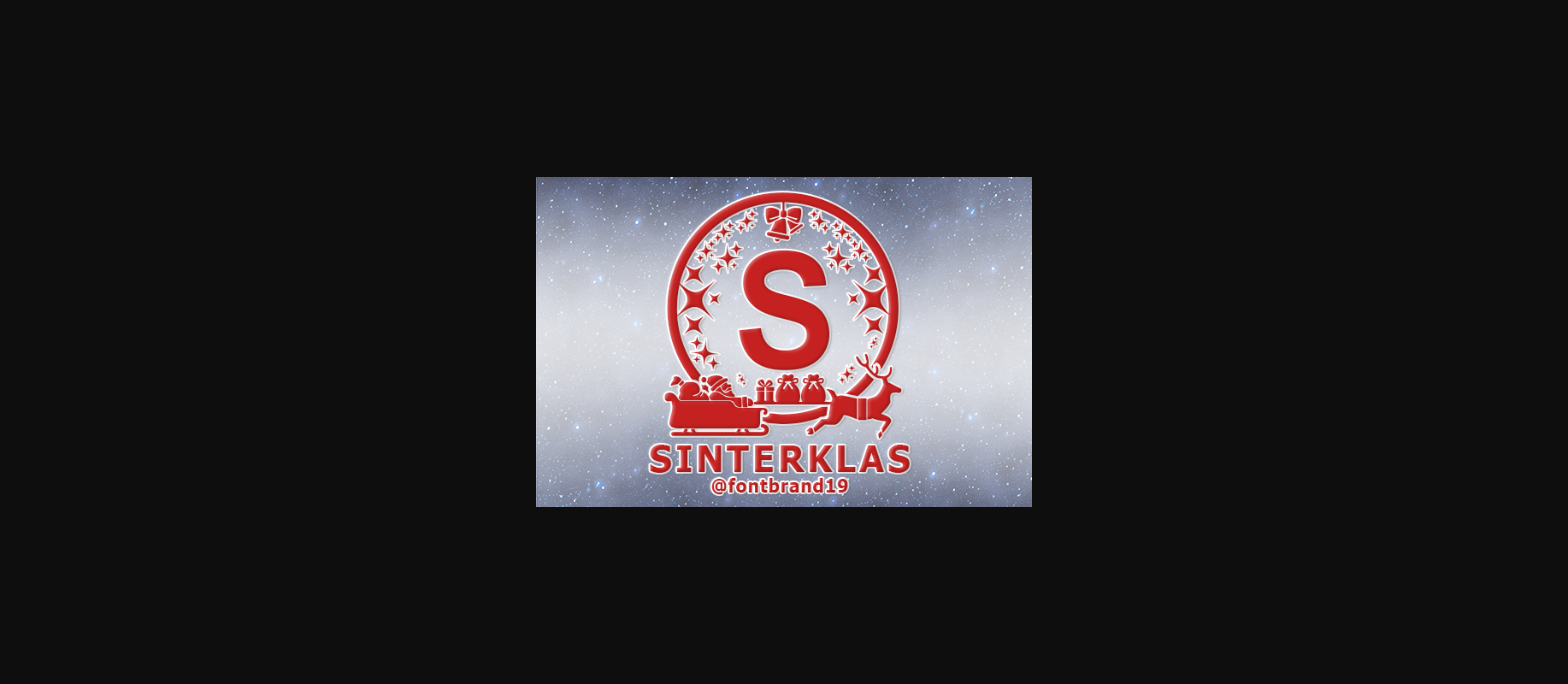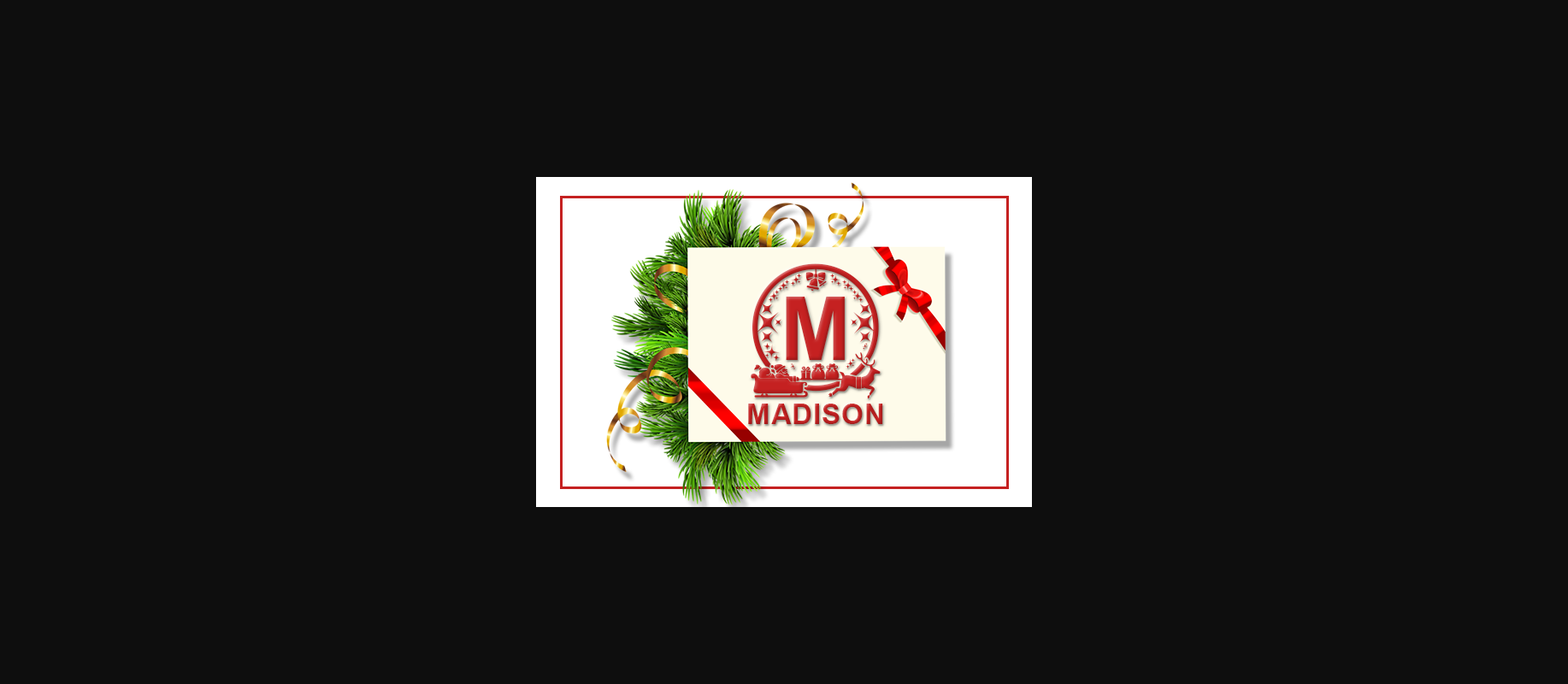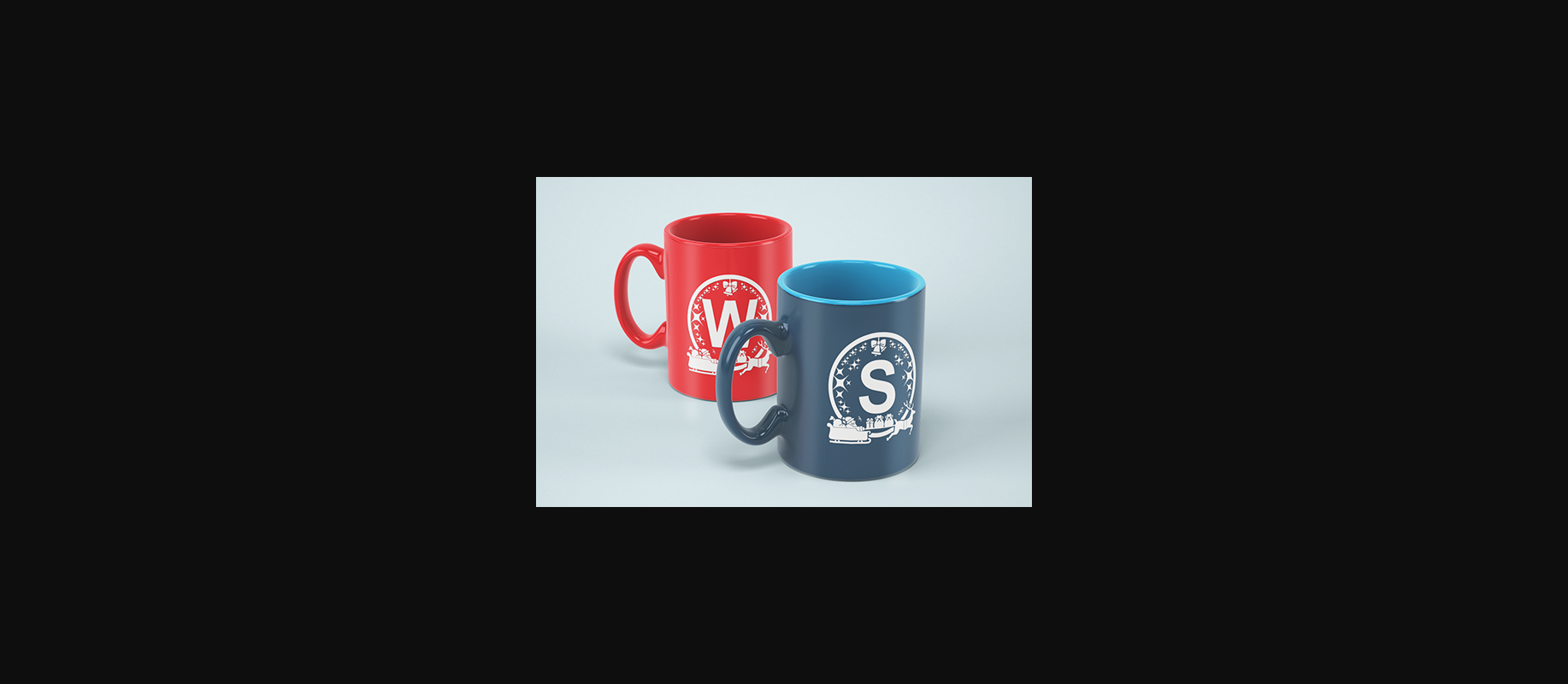
About Sinterklas Font
Sinterklas is a highly detailed, unique, and interestingly designed decorative font. Whether you use it for cartoon-related designs, children’s games, or just any creation that requires a lovely touch, this font will be an amazing choice.